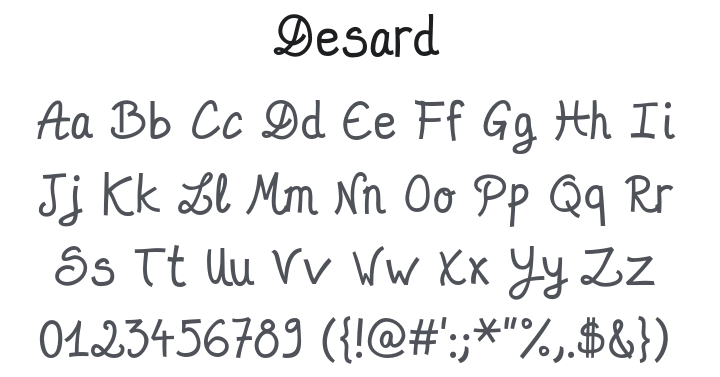
Desard Font
About Desard
Desard is a warm, happy handwriting font based on the real penmanship of Delphine Desard — giving it an authentically personal, human quality that most script fonts fail to capture. Its naturally flowing letterforms feel like a cheerful note from a friend, with OpenType letter-pair alternates that prevent repetitive-looking characters. Perfect for greeting cards, personal branding, lifestyle blogs, café menus, and casual handcrafted designs.